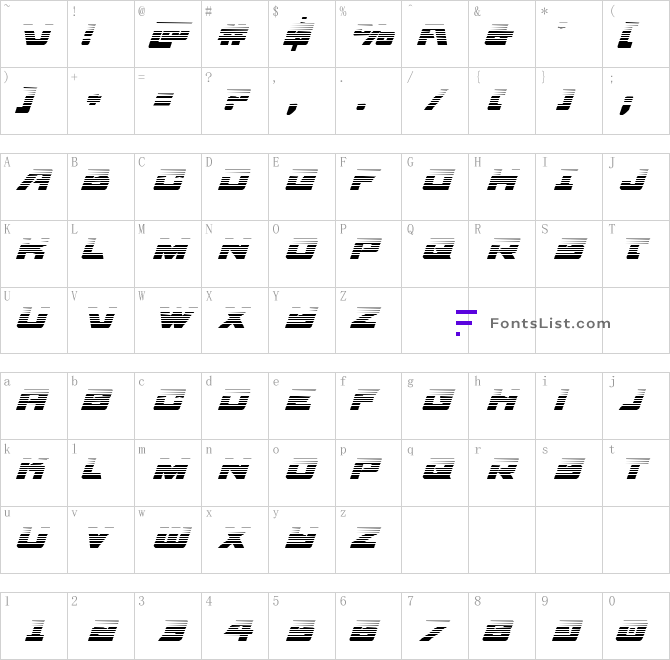
- Font Name:Aircruiser Gradient Italic
Aircruiser-Gradient-Italic.ttf is a very beautiful artistic font, Aircruiser-Gradient-Italic.ttf is widely used in the design and printing of various books and pictures,Aircruiser-Gradient-Italic.ttf has a strong visual impact,Aircruiser-Gradient-Italic.ttf is a commonly used font in newspapers, magazines and books, and is used in posters, e-commerce Poster design, store design, logo design, font design and other fields.Aircruiser-Gradient-Italic.